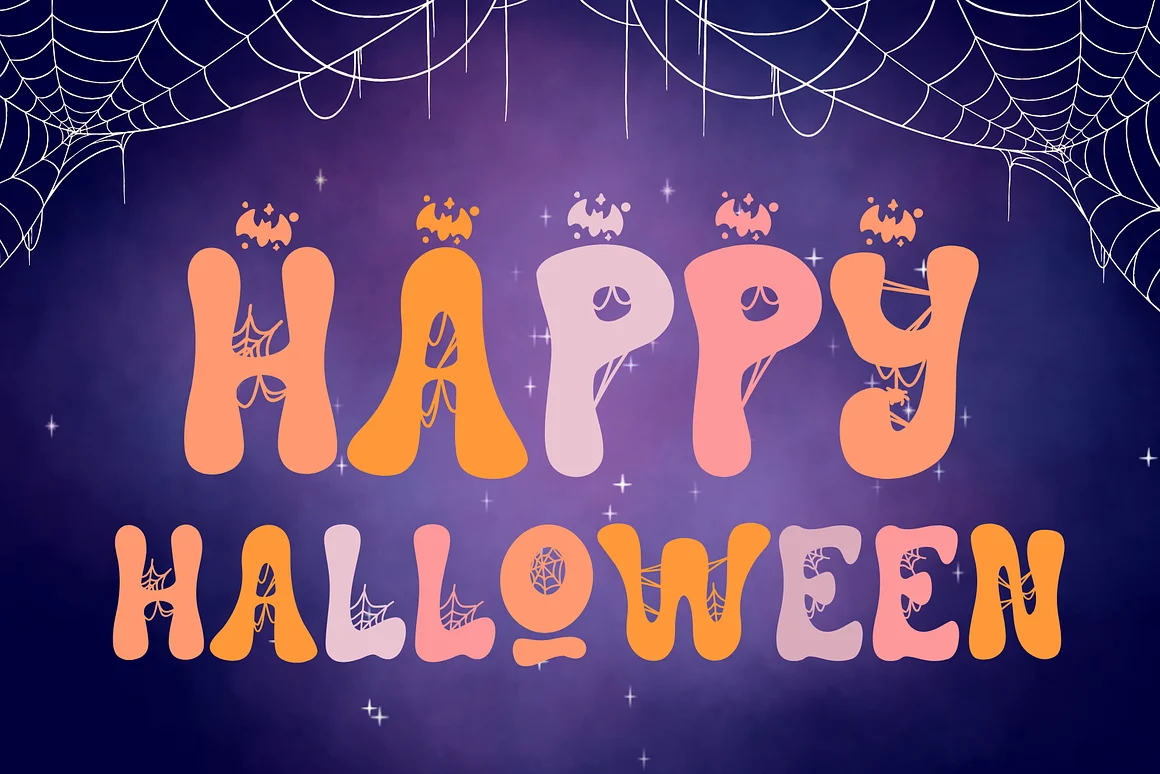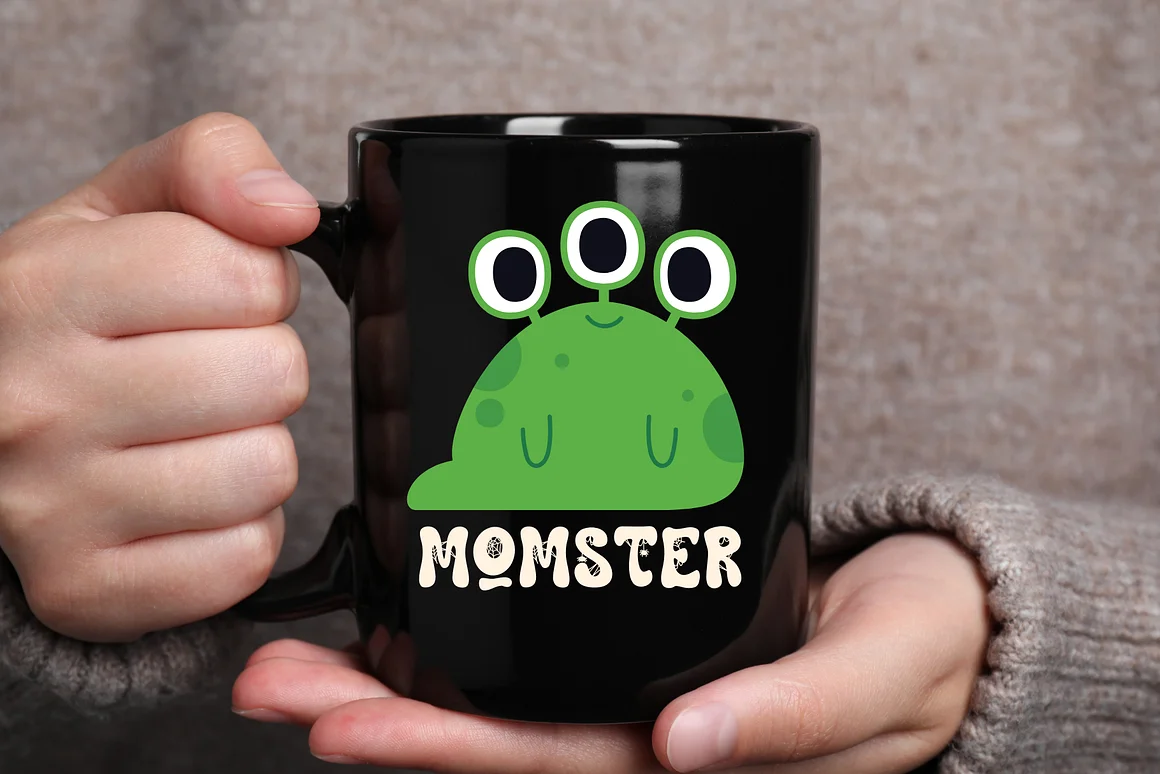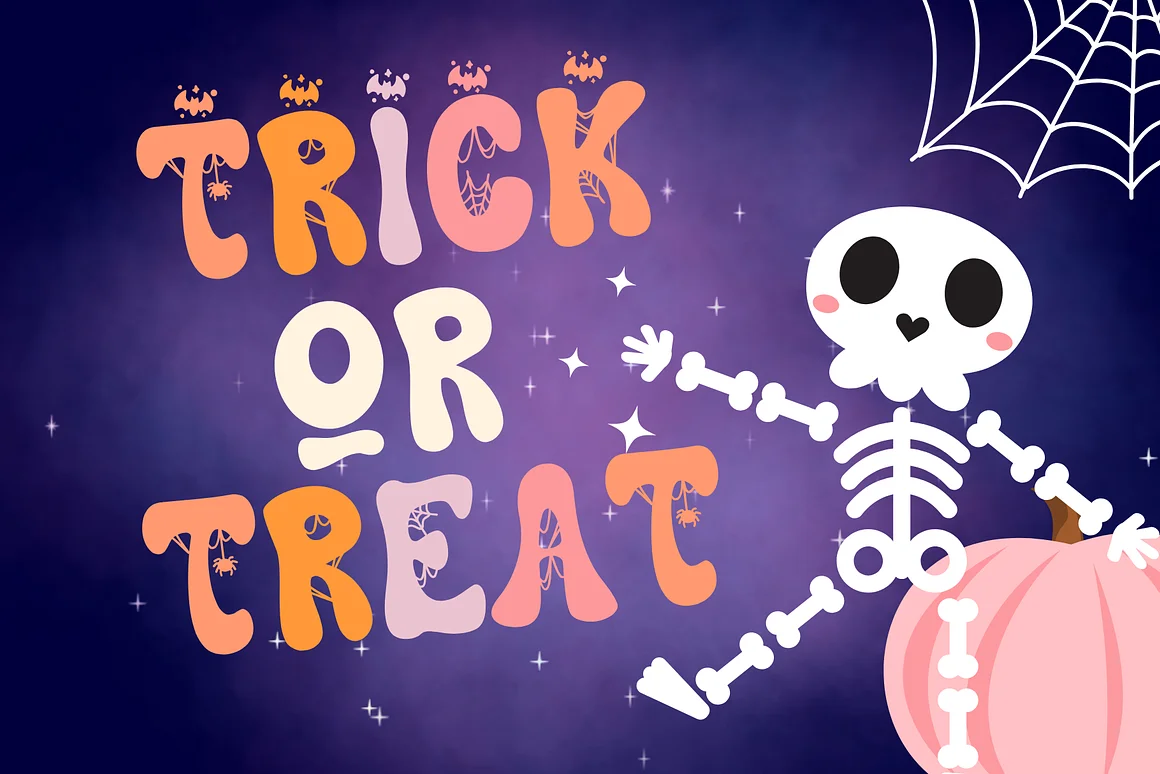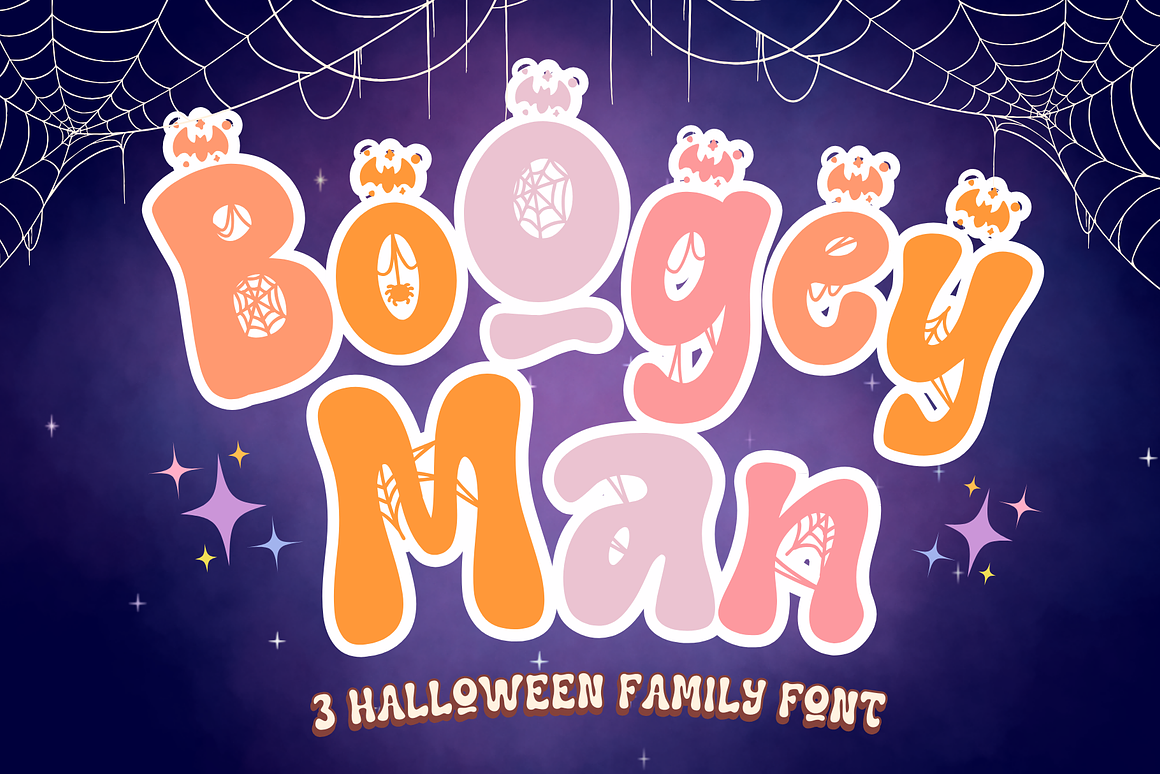
Boogeyman is Halloween Font
This nightmarish font is perfect for childhood fear themed events, nightmare Halloween parties, monster under the bed decorations, scary bedtime story displays, phobia-themed horror celebrations, psychological terror branding, nightmare inducing Halloween marketing, childhood terror attractions, fear manifestation events, and deeply unsettling Halloween messaging materials.
Boogeyman is Halloween Font is exciting because it taps into the primal childhood terror and universal fear of the unknown monster that lurks in shadows through its menacingly crafted letterforms that seem to emerge from the darkest corners of our subconscious fears. The font features disturbingly irregular characters with nightmare proportions and phobia-inspired details that evoke the bone-chilling dread of something watching from the darkness, incorporating shadow-like flourishes and monster elements that create typography as terrifying and psychologically unsettling as the feeling of being stalked by an unseen presence that knows your deepest fears. Each letter showcases the calculated malevolence and psychological terror that makes the boogeyman such an enduring symbol of pure fear, with lurking curves and nightmare accents that transform ordinary text into manifestations of childhood terror that capture the universal human fear of the monster that represents all our darkest anxieties and most primitive phobias.
The Boogeyman is Halloween Font family includes fear-inspired variations: Regular, Bold, Light, Nightmare, and Lurking versions. The collection features special terror elements including shadow accents, monster details, nightmare flourishes, and phobia ornaments. Additional components include fear borders, nightmare frames, terror decorations, and psychologically disturbing ornamental designs that enhance the font's boogeyman Halloween appeal and create cohesive childhood terror themes.
Psychological horror creators and fear specialists will find Boogeyman is Halloween Font to be an invaluable resource for creating authentically terrifying Halloween communications that tap into the deepest human fears and childhood terrors that make the boogeyman such a powerful symbol of pure psychological horror. This nightmarishly crafted font transforms ordinary Halloween messaging into fear manifestations that resonate with audiences who understand the profound terror and psychological power that make boogeyman themes such effective instruments of genuine fear and lasting psychological discomfort.
The typeface includes comprehensive character support with nightmare styling that maintains excellent readability while conveying the psychological terror and childhood fear atmosphere of boogeyman Halloween celebrations. The font's menacing design ensures deeply unsettling results across both amateur fear applications and professional psychological horror productions.
Perfect for psychological horror events, nightmare-themed celebrations, childhood terror attractions, and deeply disturbing seasonal marketing, this font delivers psychologically terrifying visual impact that communicates primal fear, childhood terror, and the profound psychological horror that makes the boogeyman such an enduringly powerful and universally terrifying symbol of our deepest fears.